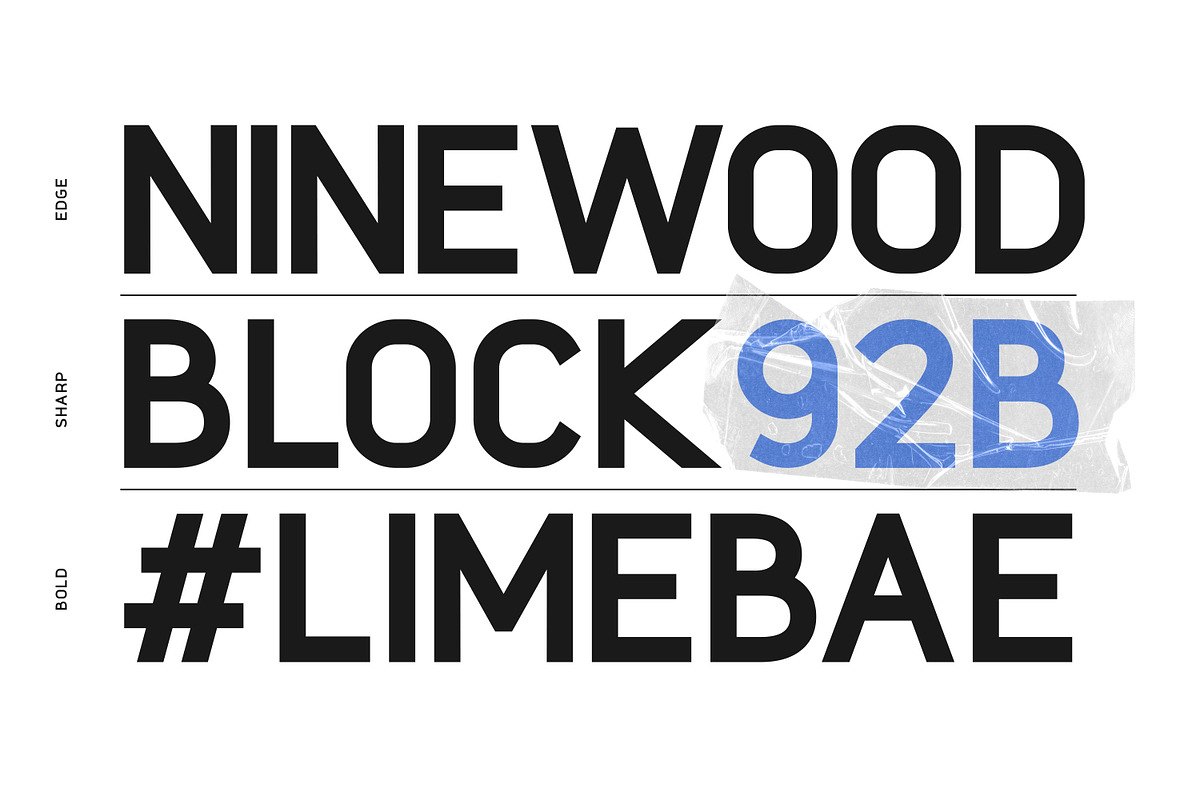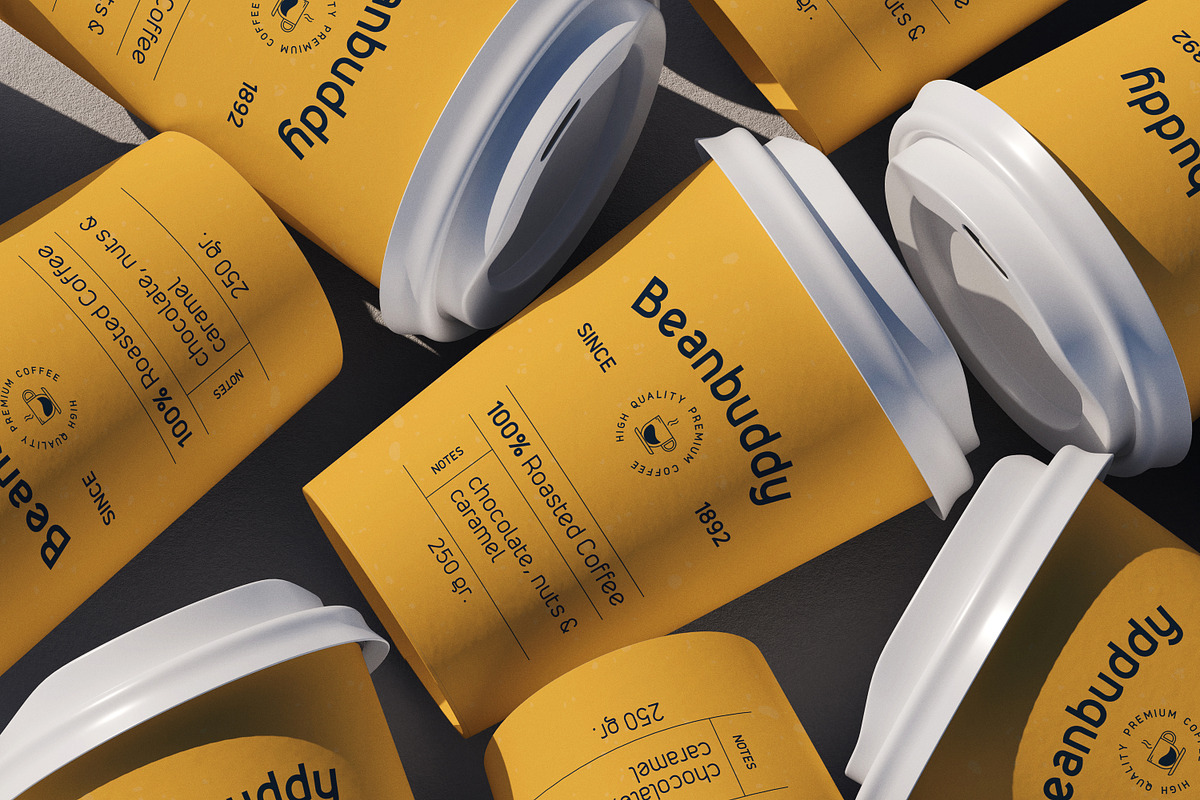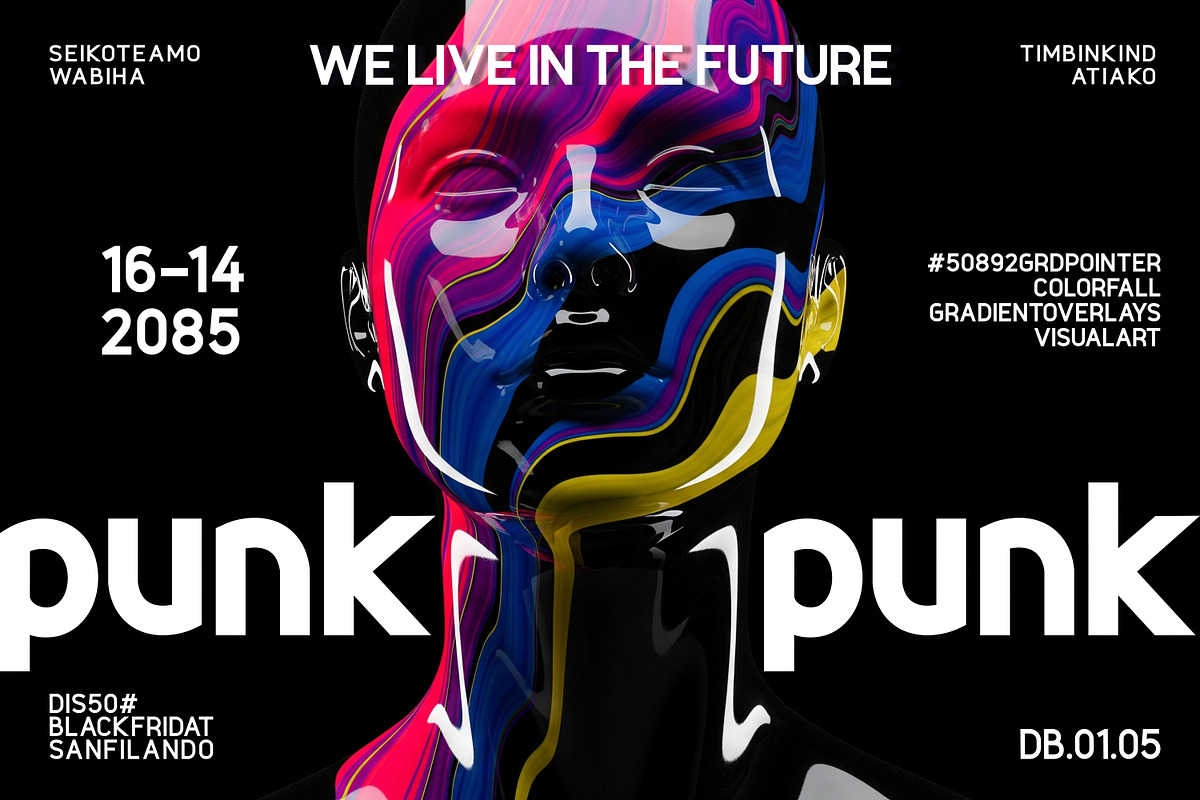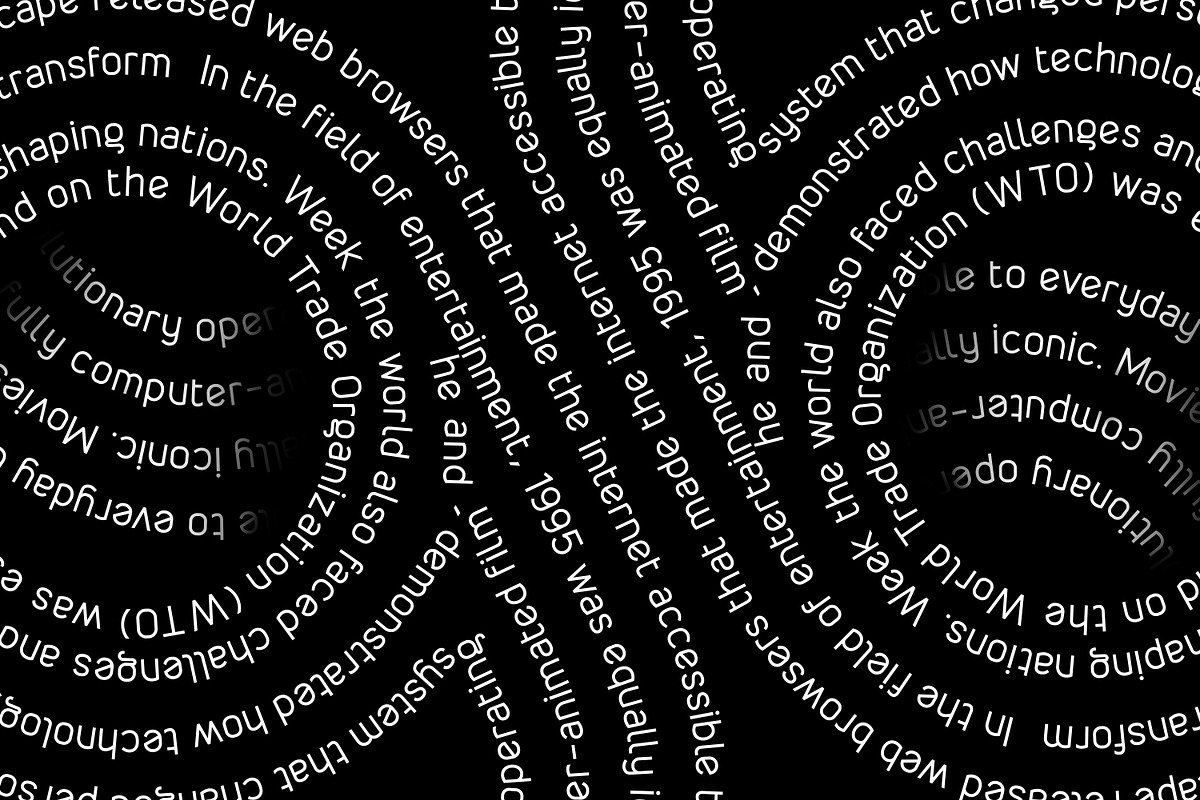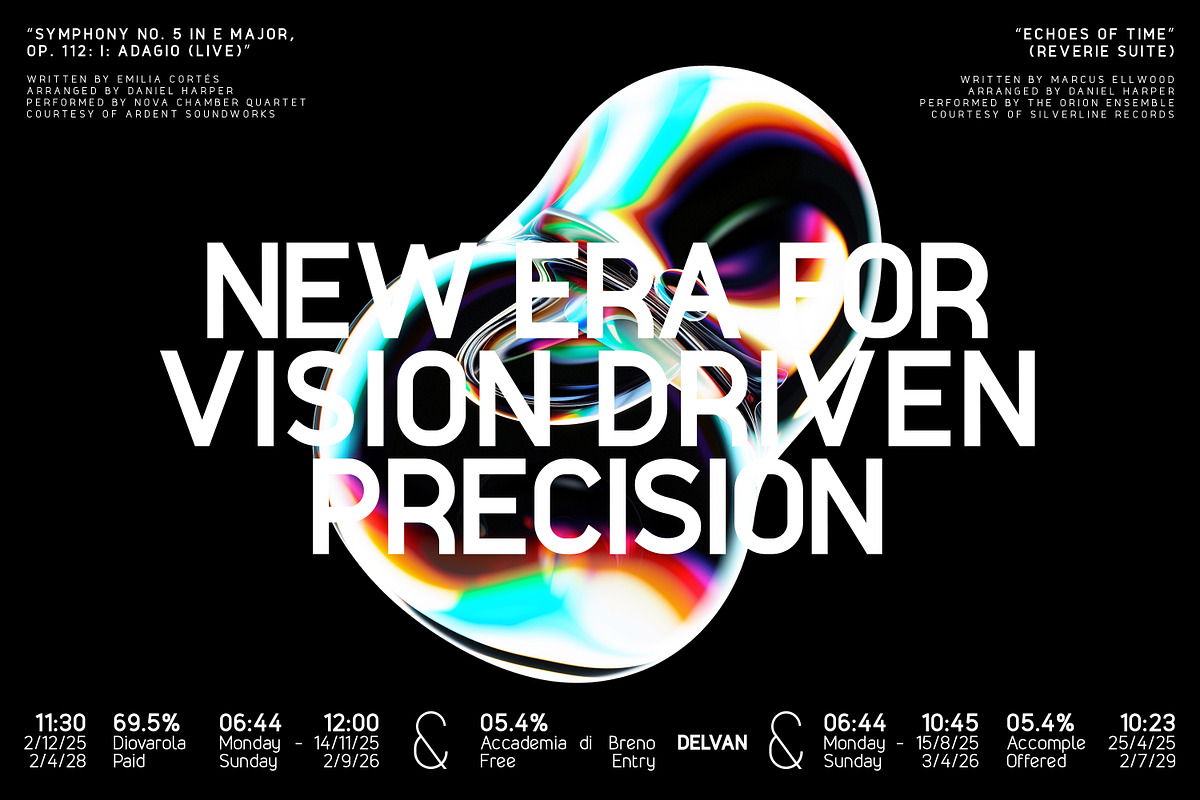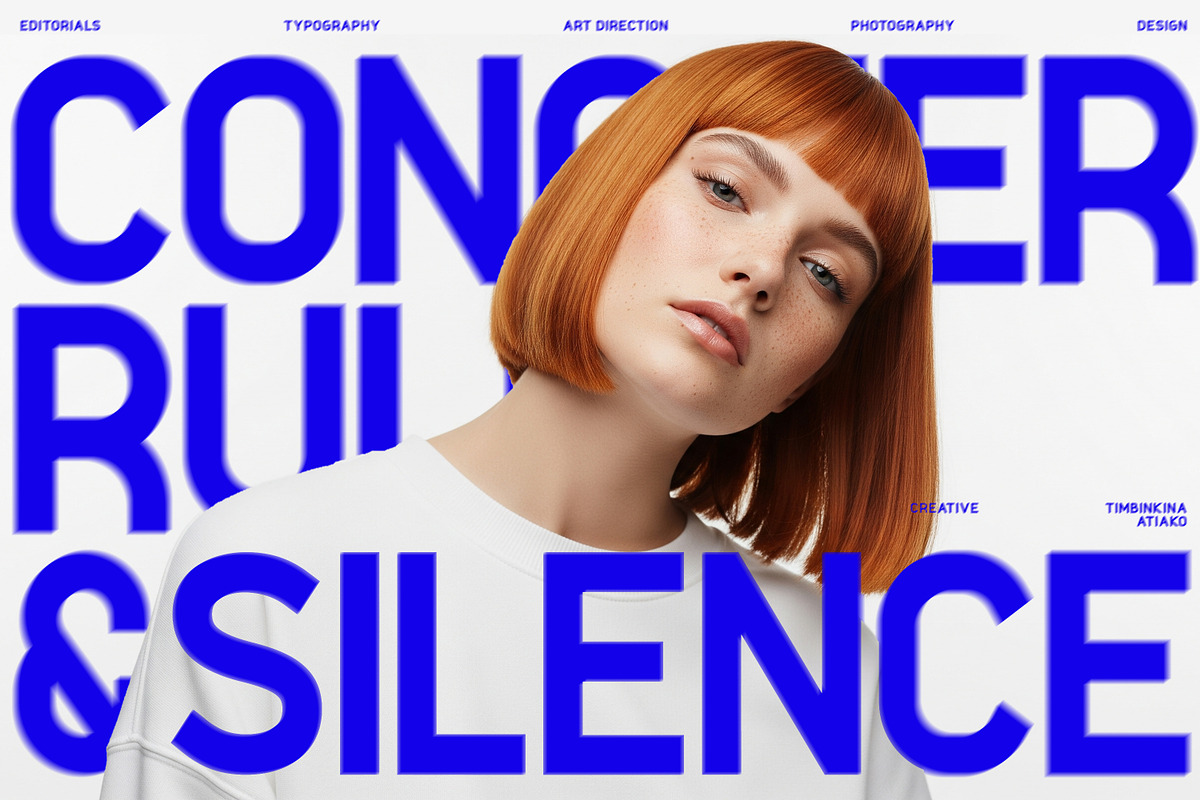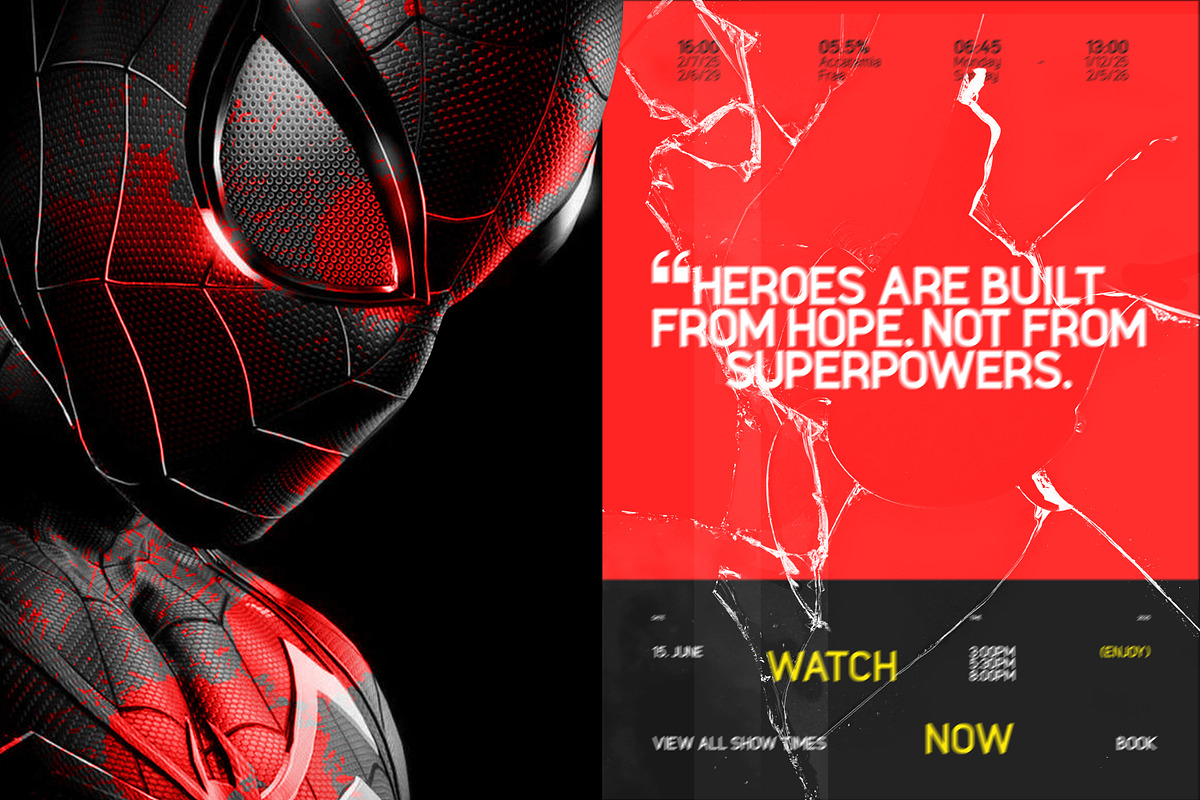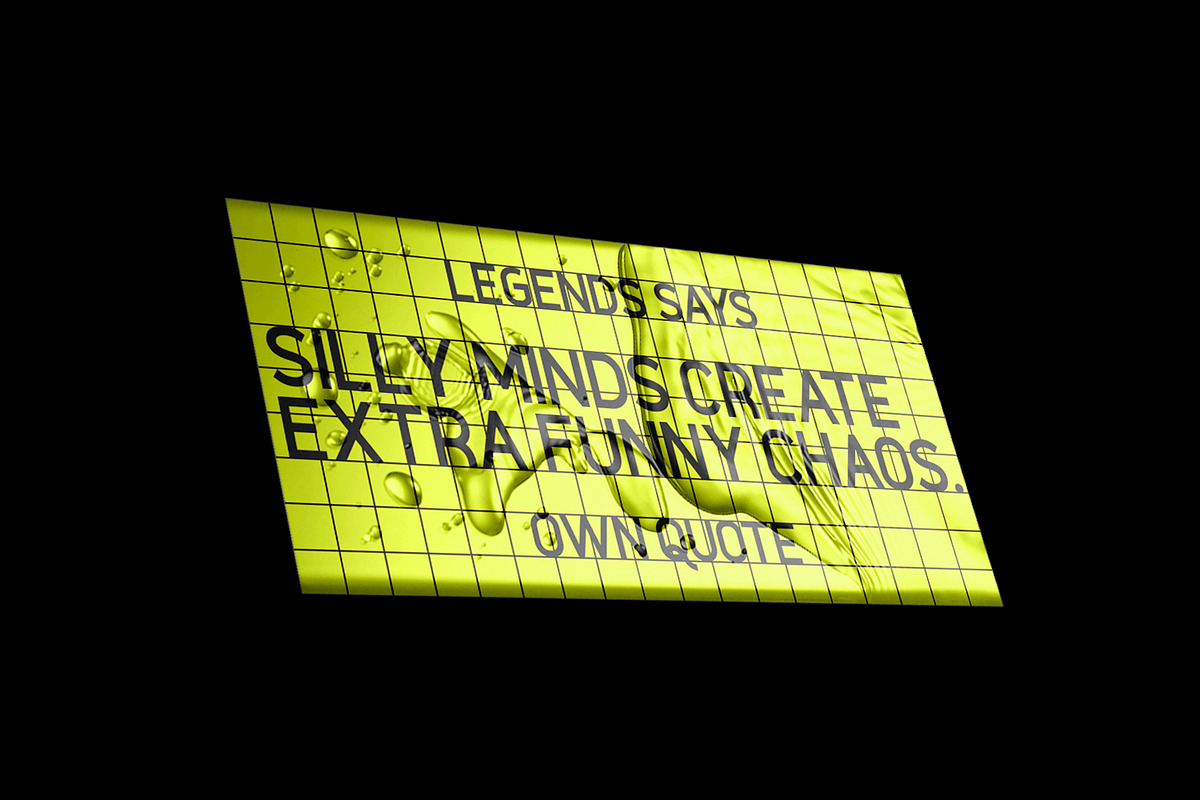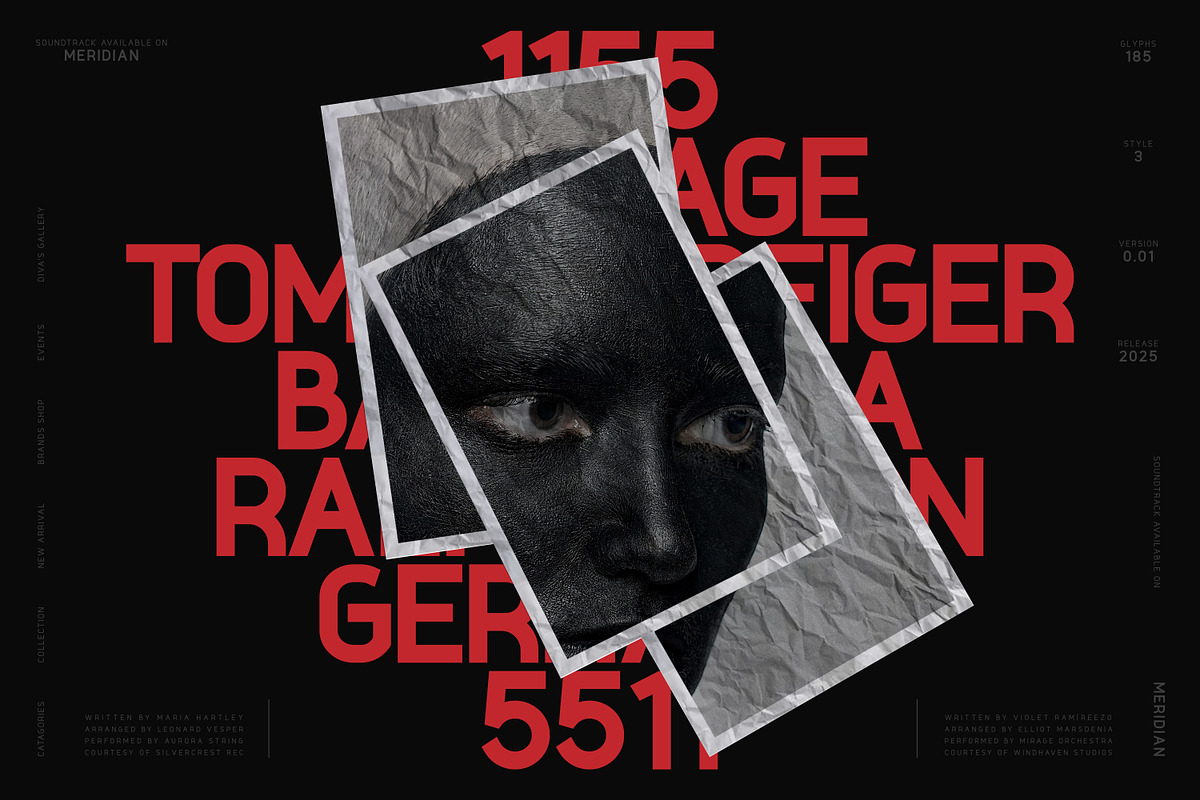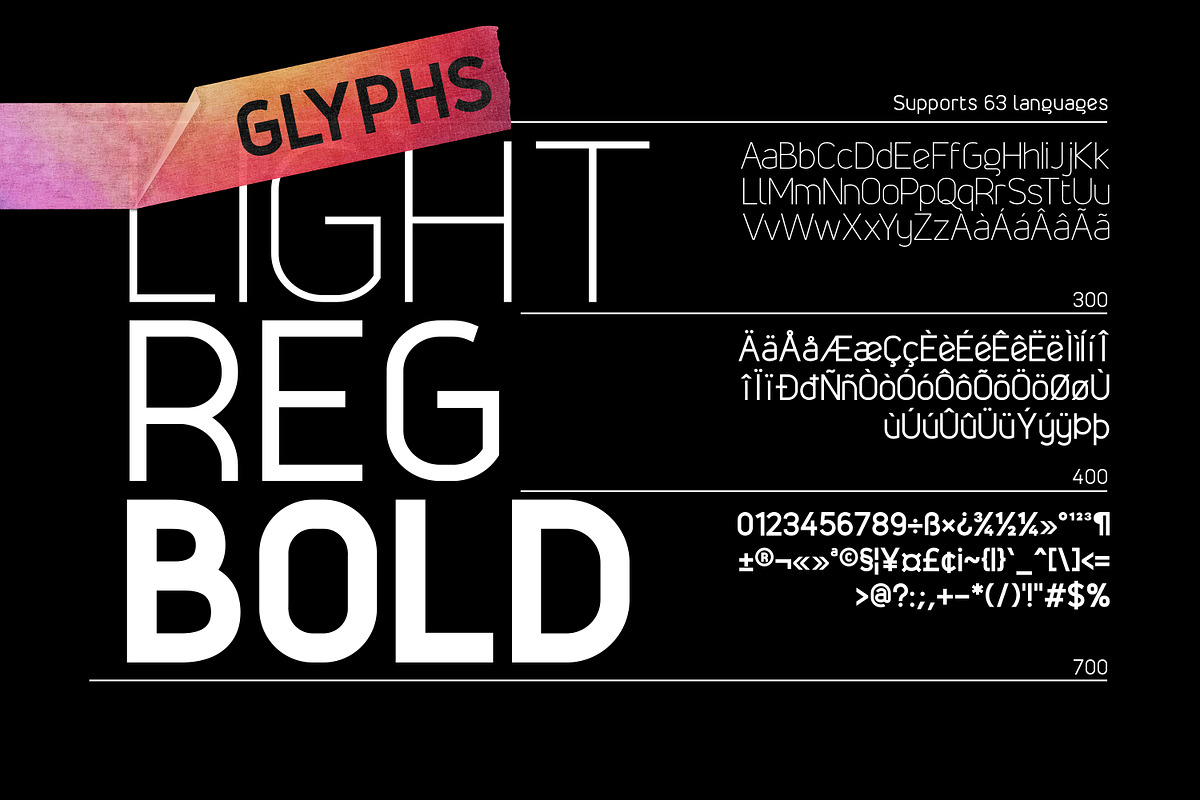
Gilox - Sans Serif Typeface
Gilox is a sharp and contemporary sans-serif typeface built for modern visual design. With its clean geometry, smooth curves, and confident letter structure, Gilox offers a fresh and striking appearance suitable for branding, editorial layout, packaging, and more. This typeface features three refined weights—Bold, Regular, and Light—making it easy for designers to create strong typographic contrast in any project. Whether you're crafting a standout headline or clean body text, Gilox provides a polished, modern, and highly versatile look. Gilox typeface is made for designers who appreciate minimal aesthetics with a futuristic edge.